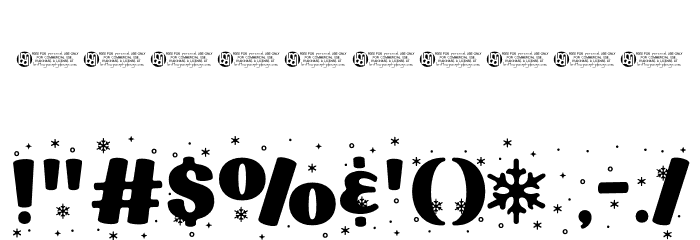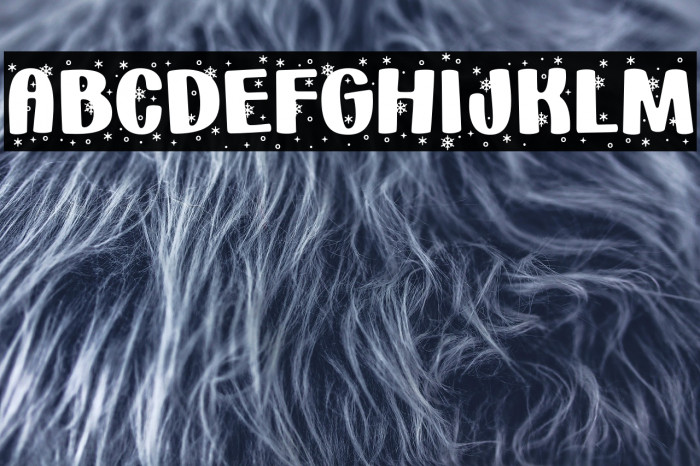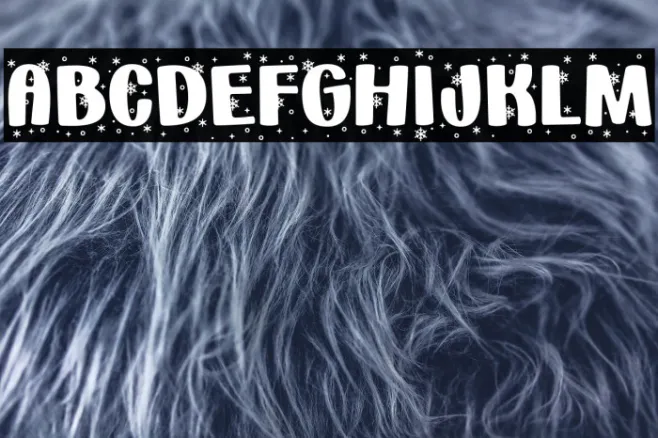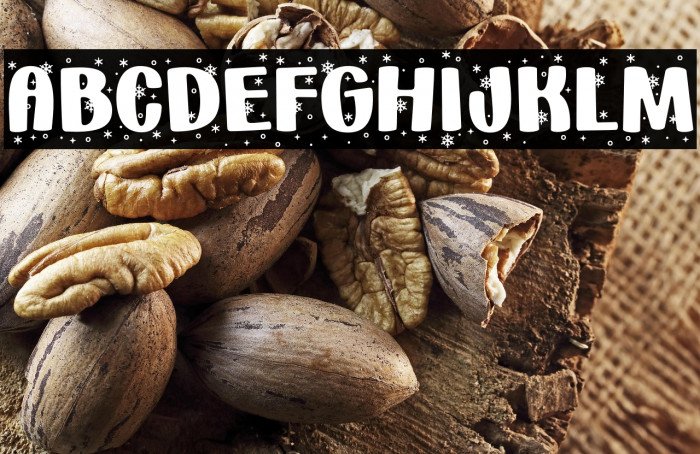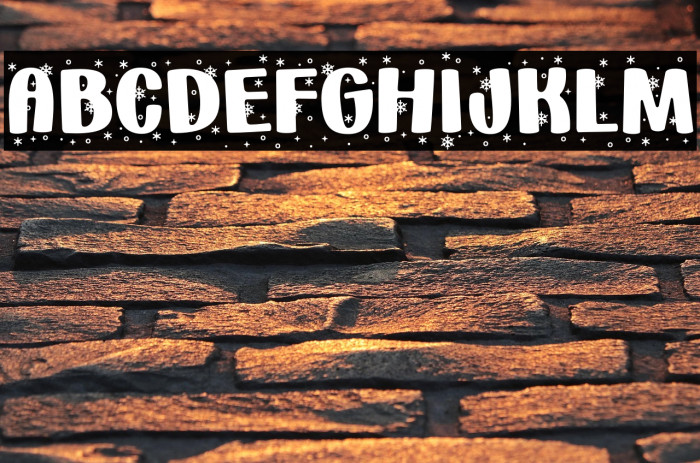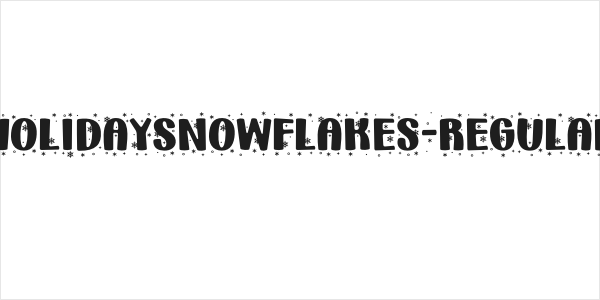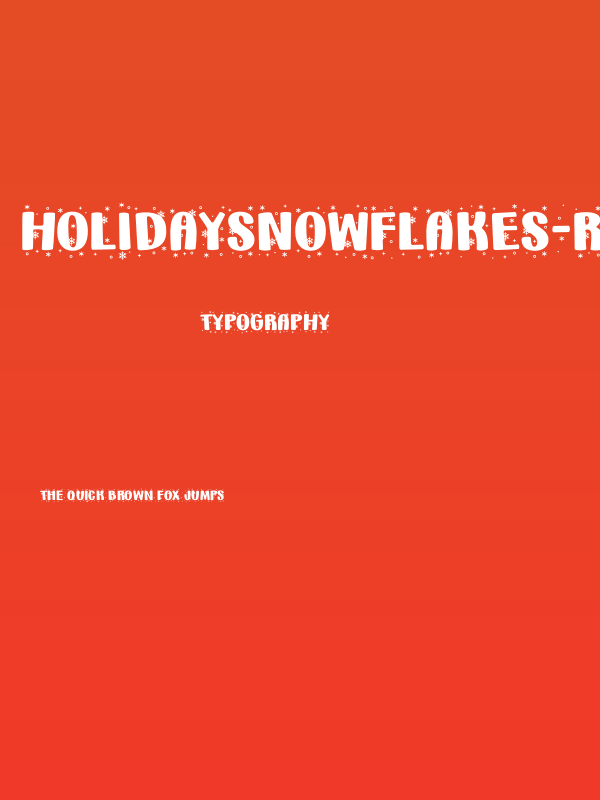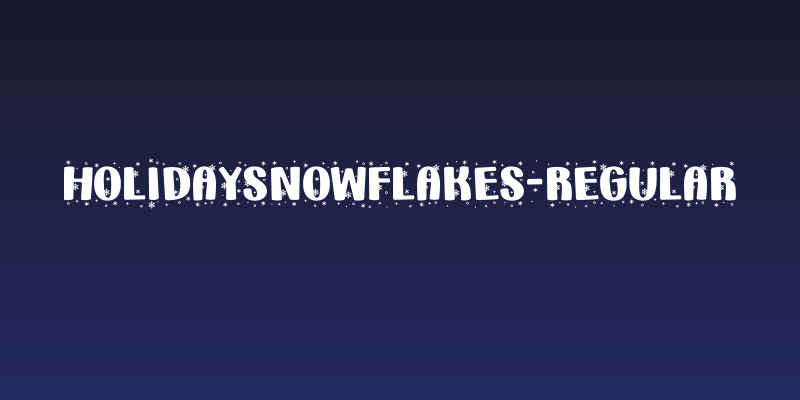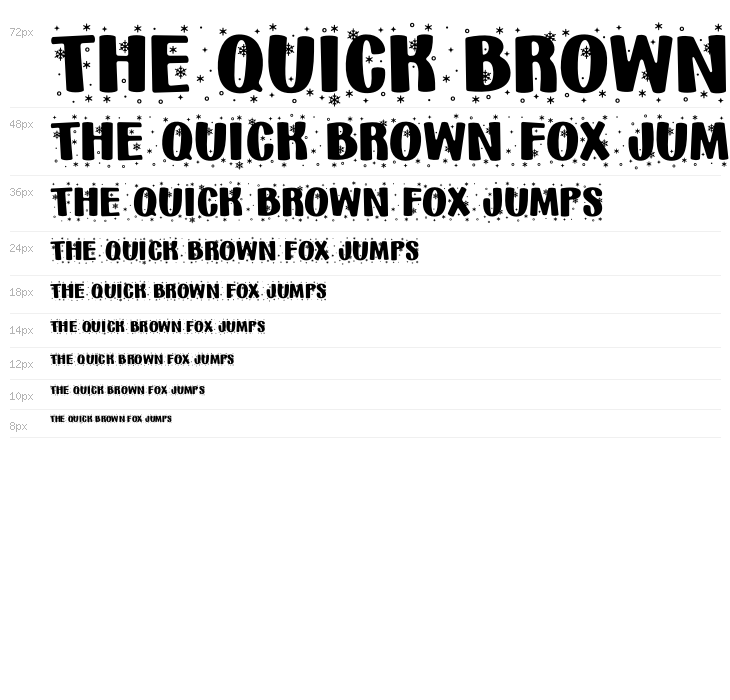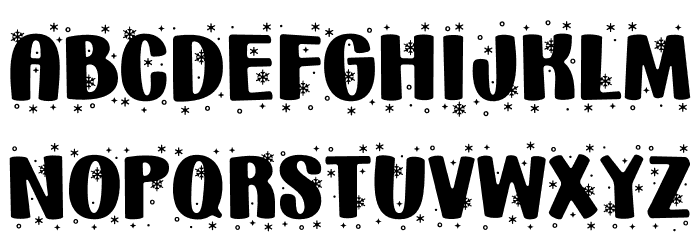
HolidaySnowflakes-Regular Font
HolidaySnowflakes-Regular Description
This font features a playful and festive design, incorporating snowflake motifs within and around each character. The letters are bold and rounded, with a whimsical touch that evokes a sense of holiday cheer. The snowflakes are intricately detailed, adding a decorative element that enhances the overall aesthetic. This font captures the essence of winter festivities, making it ideal for seasonal projects. The characters are well-spaced, ensuring readability while maintaining a decorative flair. The combination of bold strokes and delicate snowflake patterns creates a unique contrast, making it stand out in any design.
| Use Case | Headlines, Logos, Seasonal Designs |
| Proposed Projects | Ideal for holiday cards, festive banners, winter-themed posters, and seasonal branding. |